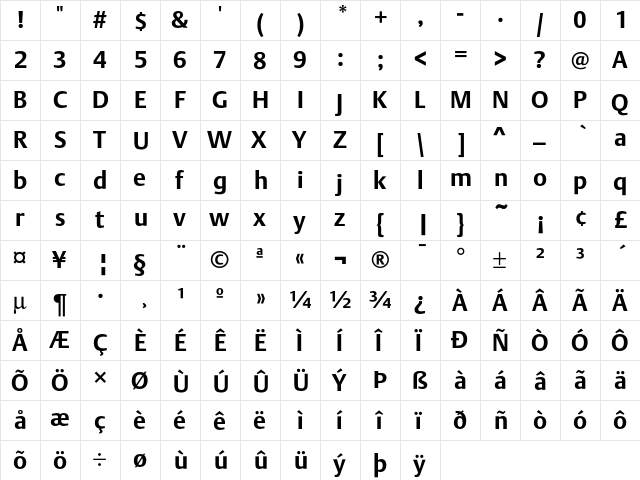
DTL Argo T Bold
Design Context for DTL Argo Typeface
DTL Argo takes a measured approach to typography — its balanced proportions and neutral character make it a reliable workhorse for both digital and print work. The heavy weight commands attention and anchors typographic hierarchies.